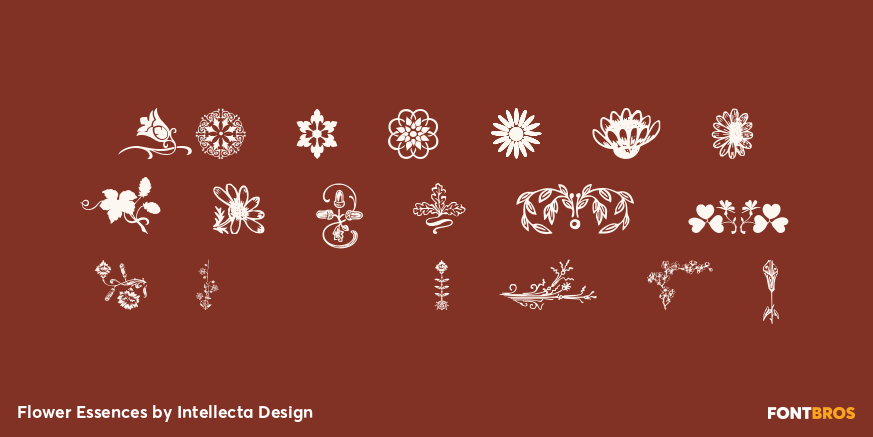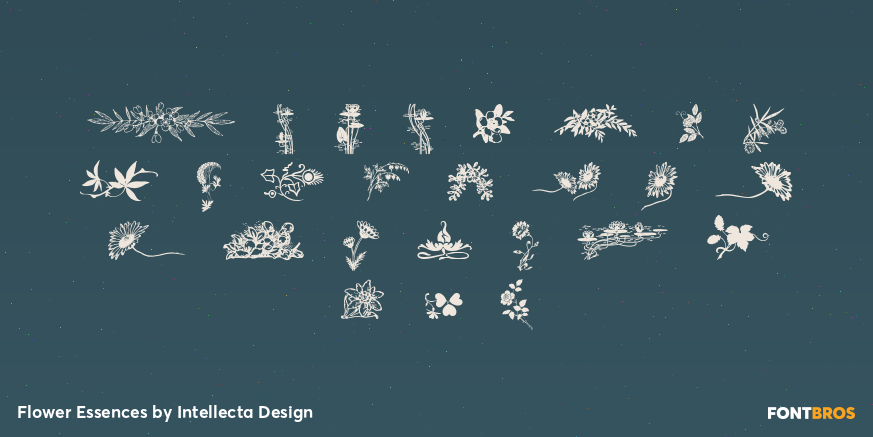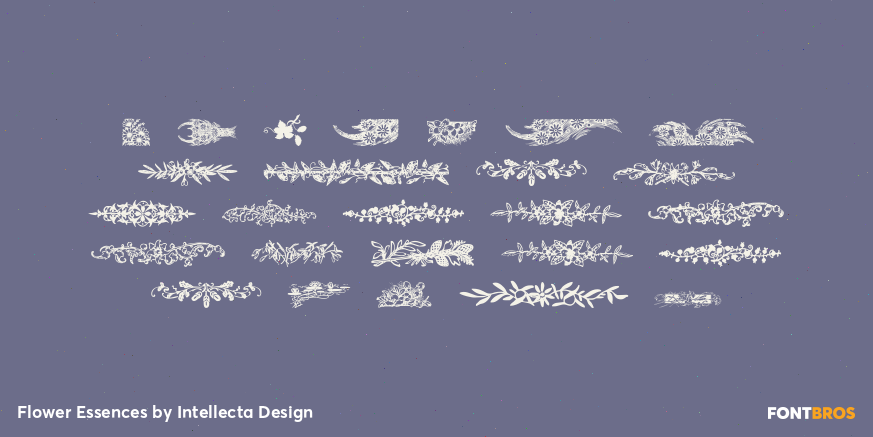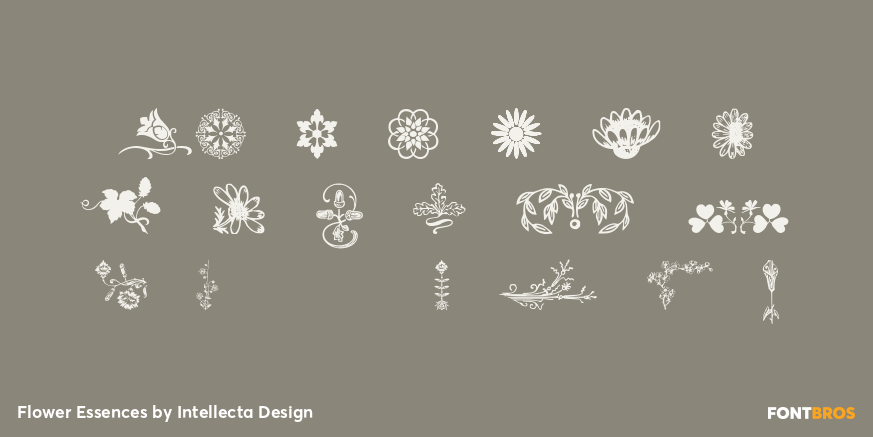
Flower Essences
Font Family by Intellecta Design
A collection of natural and organic elements from the garden. A great set of type dingbats in the genre of planets, leaves and flowers.